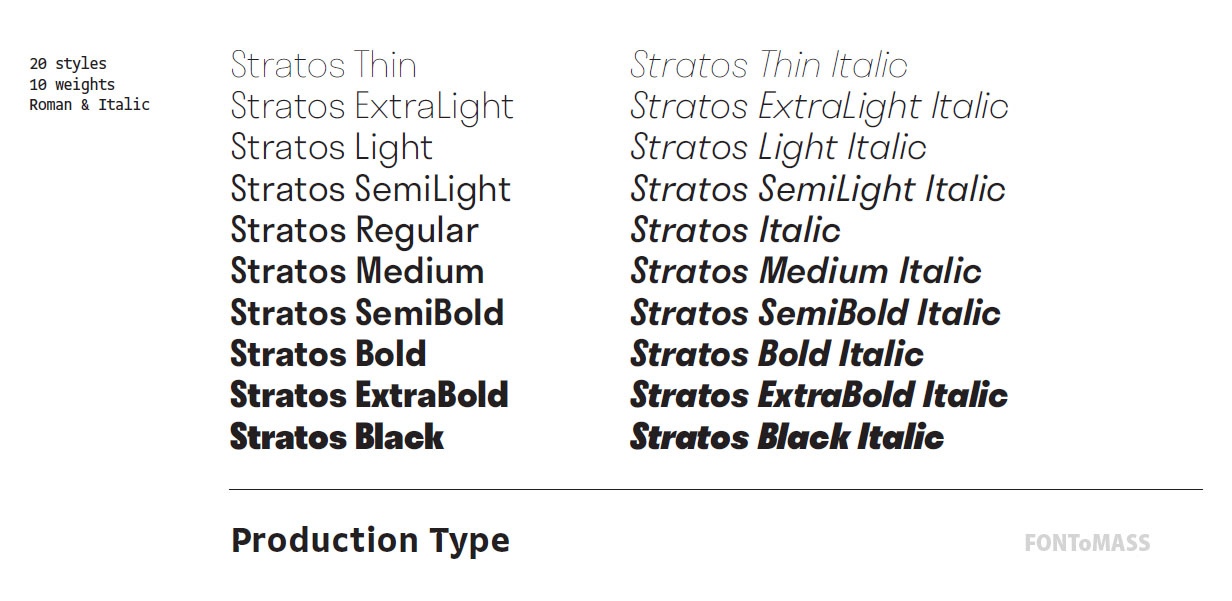
Stratos Font
This aerospace-inspired typeface is perfect for aviation company branding, space technology marketing, aircraft manufacturer logos, flight training school materials, aerospace engineering documentation, pilot equipment packaging, aviation event graphics, and high-altitude adventure campaigns. Stratos Font delivers soaring sophistication in applications where aviation excellence and atmospheric precision are essential for communicating professional competence and pioneering spirit to aviation enthusiasts and aerospace professionals.
What makes Stratos Font so exciting is its masterful interpretation of stratospheric elegance and aeronautical engineering through precision typography. The font features streamlined letterforms with aerodynamic characteristics that suggest flight dynamics and atmospheric navigation. Each character has been meticulously engineered to convey altitude and technical excellence while maintaining exceptional legibility across various aviation applications. The typeface's elevated personality creates immediate associations with professional aviation and atmospheric exploration, making it perfect for brands operating in the aerospace industry that need to communicate reliability, precision, and pioneering innovation through their visual identity.
The Stratos Font includes high-performance style variations: Regular, Bold, Condensed, and Extended versions. This aeronautical collection provides designers with comprehensive tools to create dynamic layouts and establish authoritative typographic treatments that capture the essence of aviation excellence. Each style maintains the font's inherent precision while offering different emphasis levels for various aerospace applications and flight-related design contexts.
Whether you're developing aviation industry identities, creating aerospace marketing materials, or designing flight training presentations, Stratos Font Free Download delivers the professional aesthetic that builds confidence with pilots, aviation enthusiasts, and aerospace clients. Its authoritative character makes it particularly suitable for airlines, flight schools, aircraft manufacturers, and aviation service providers. The font's commanding presence ensures credibility in both technical documentation and aviation marketing applications, while its versatile design adapts perfectly to both traditional and modern aerospace environments.
This elevated typeface represents the gold standard for designers who understand the critical importance of precision and reliability in aviation and aerospace brand communication.